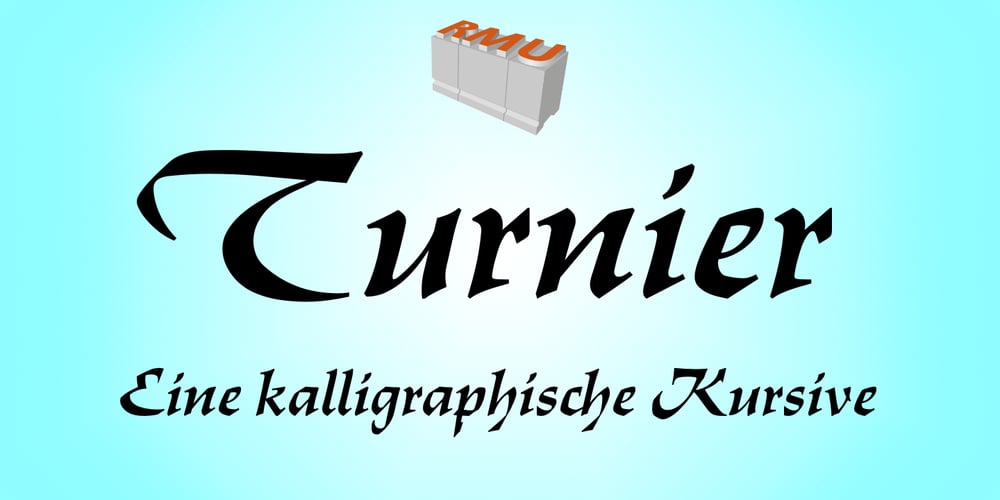
Turnier
Turnier font
Turnier Font Family was designed by Günter Gerhard Lange, Ralph M. Unger and published by RMU. Turnier contains 1 styles and family package options. G. G. Lange’s expressive italic ‘Derby’ with its calligraphic touch has come to life again. Carefully redrawn and extended for multilingual usage, ‘Turnier’ is an ideal font for ads, posters, book titles and much more.